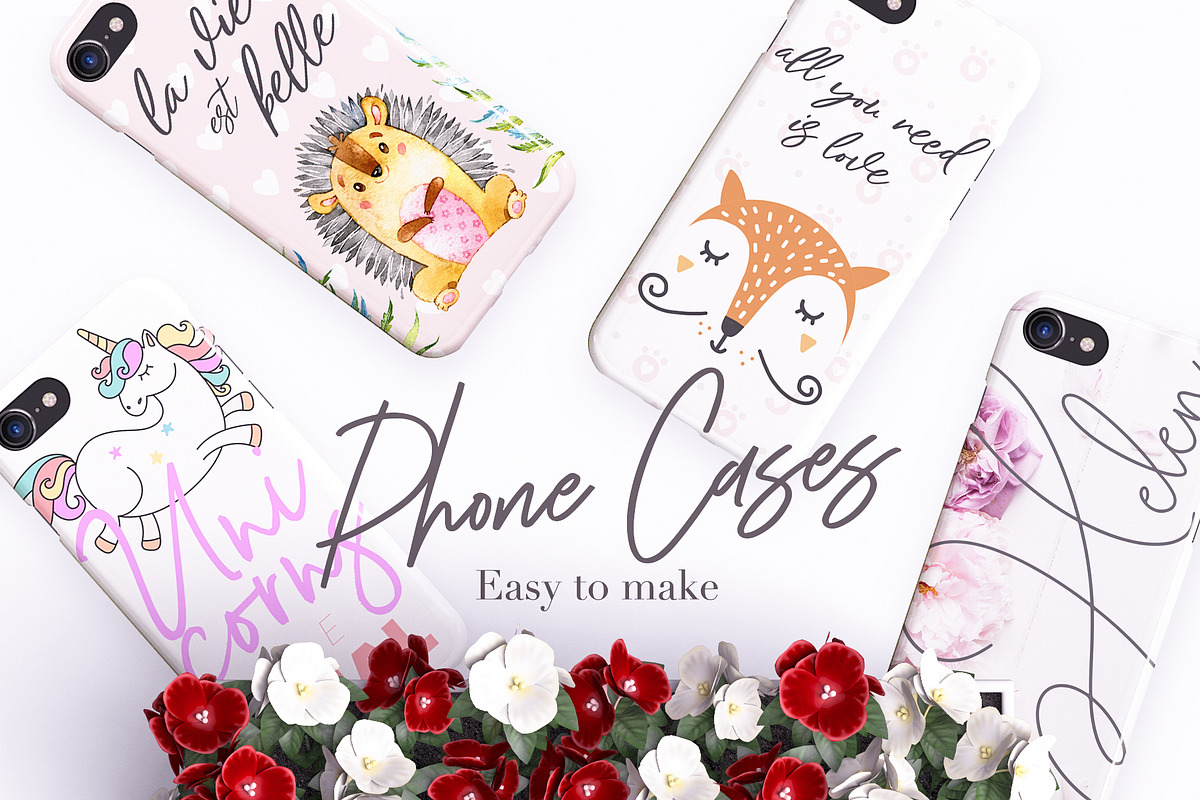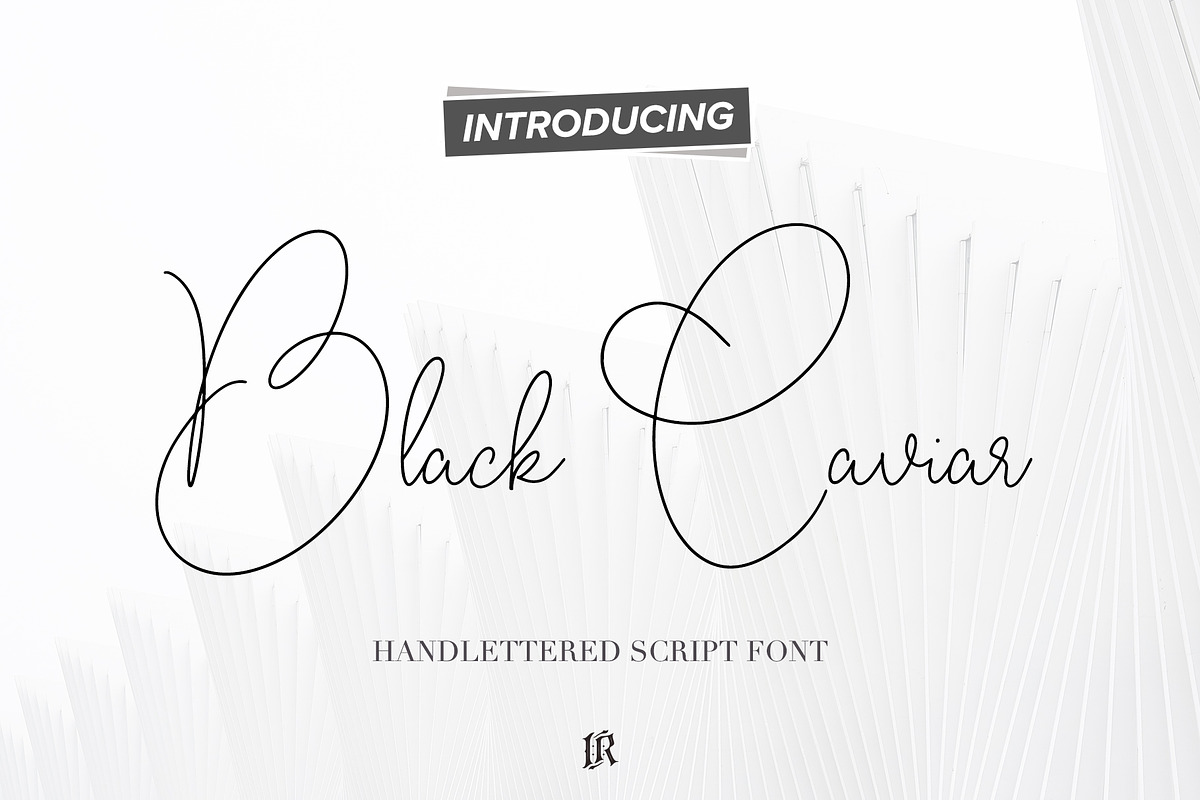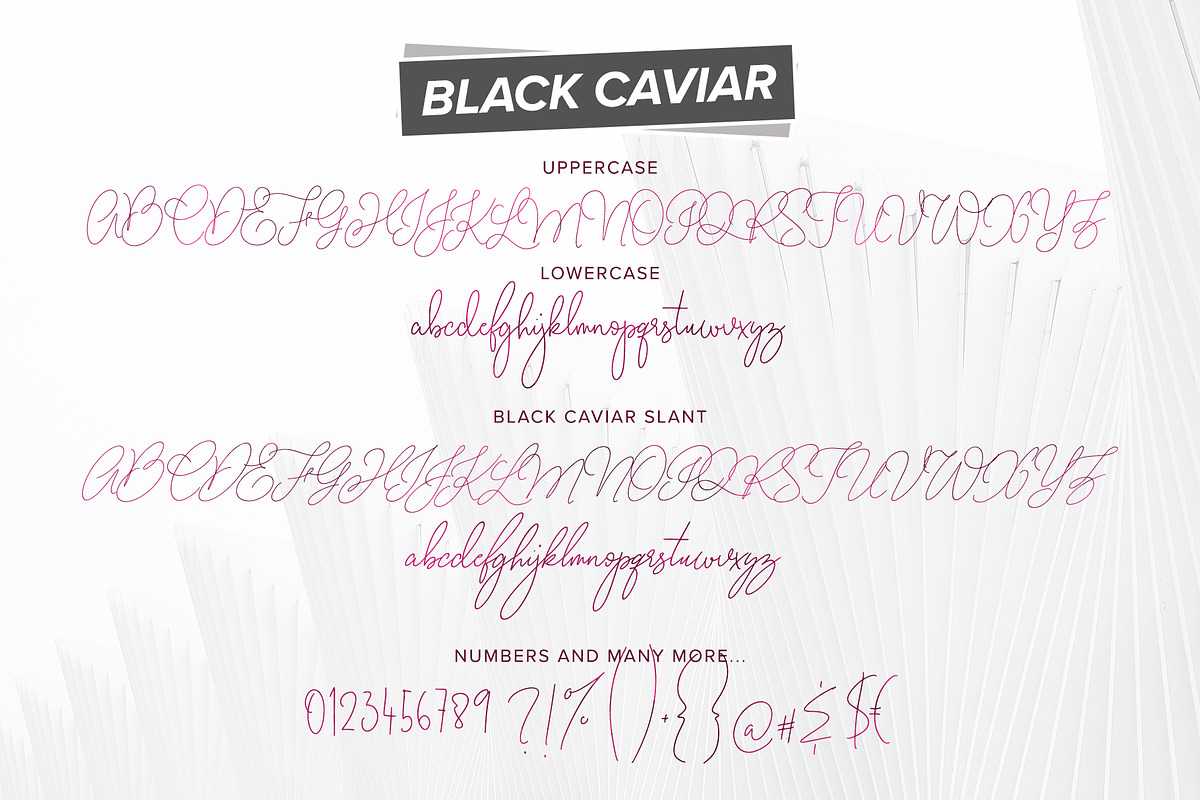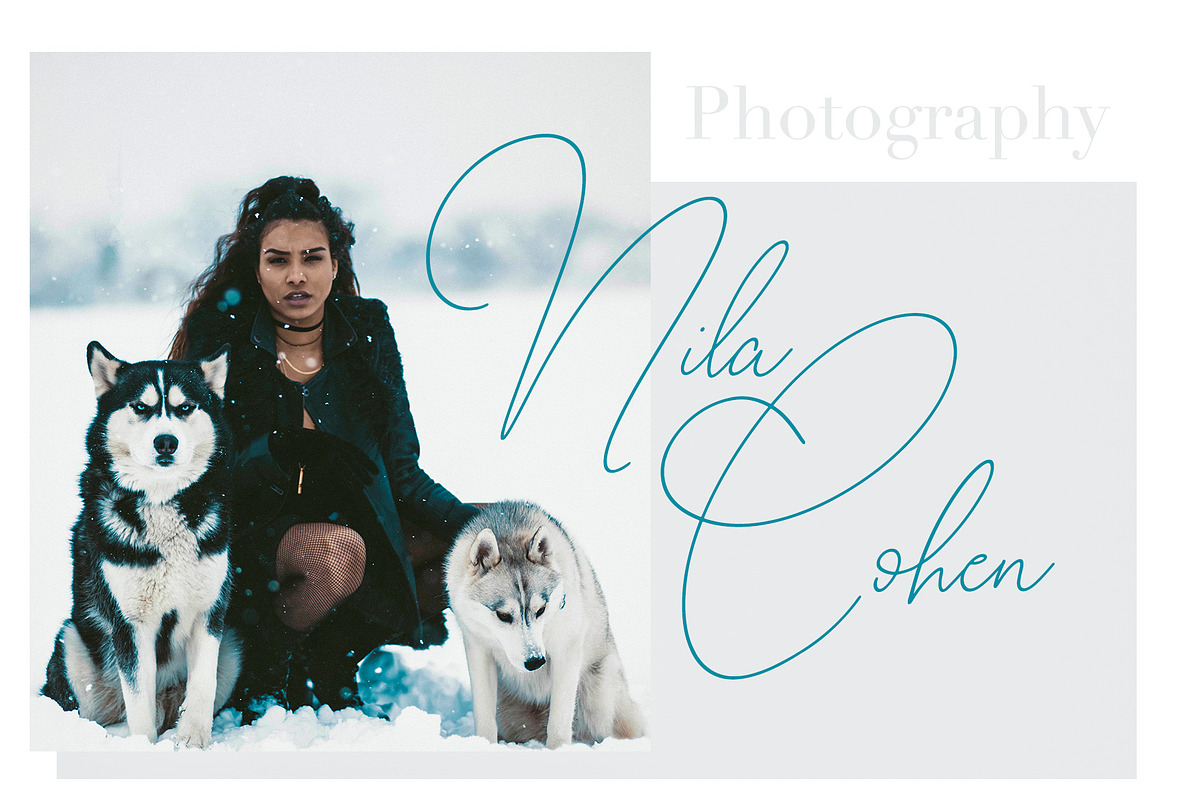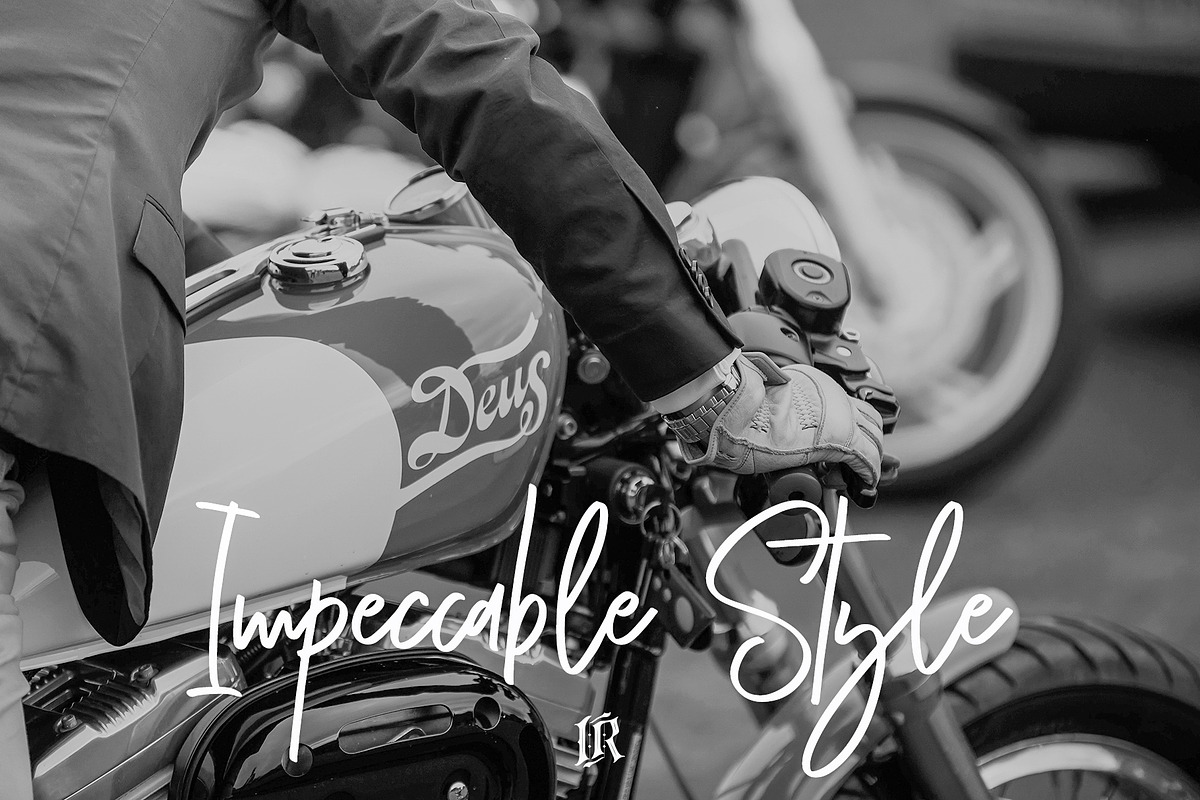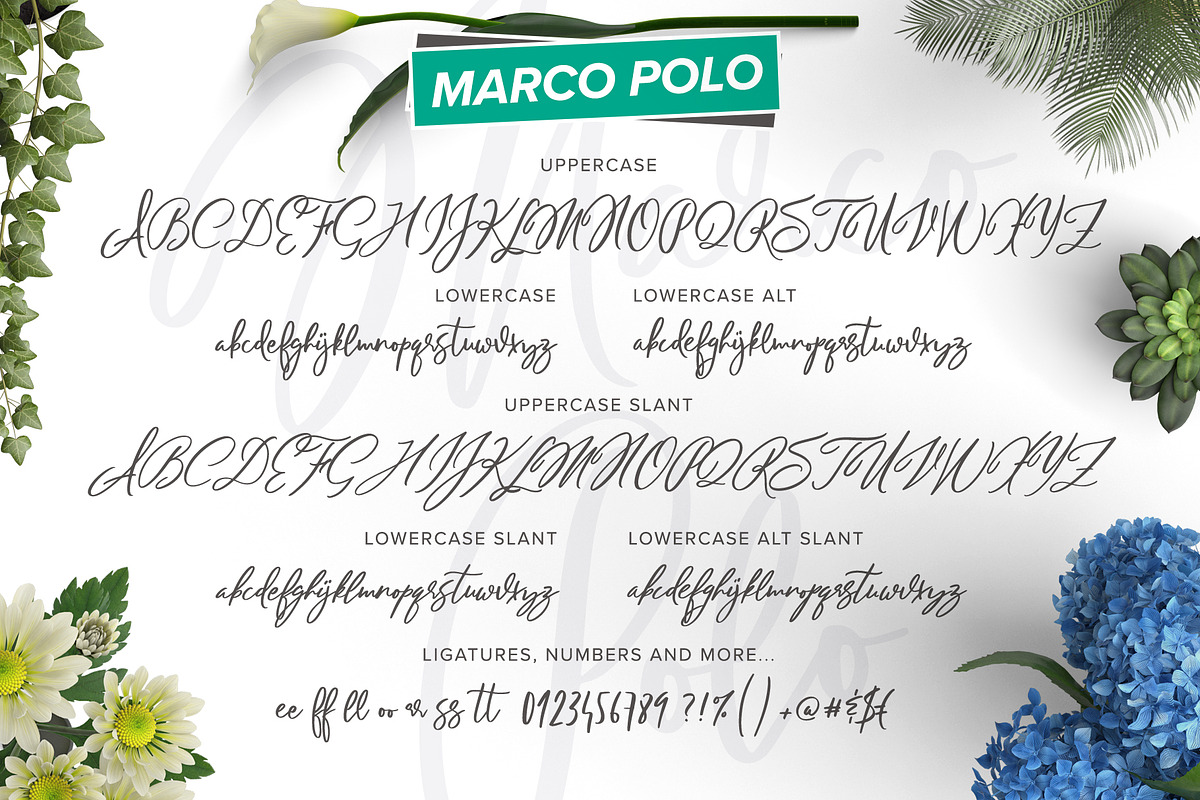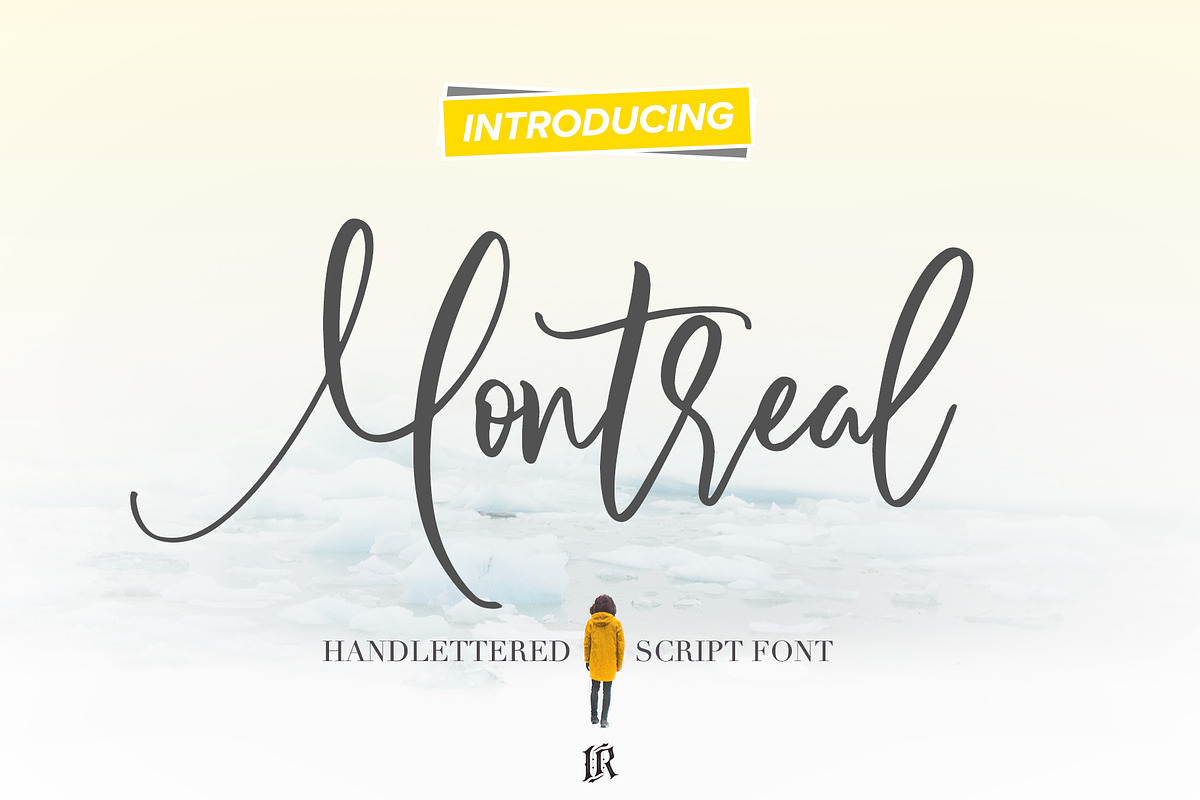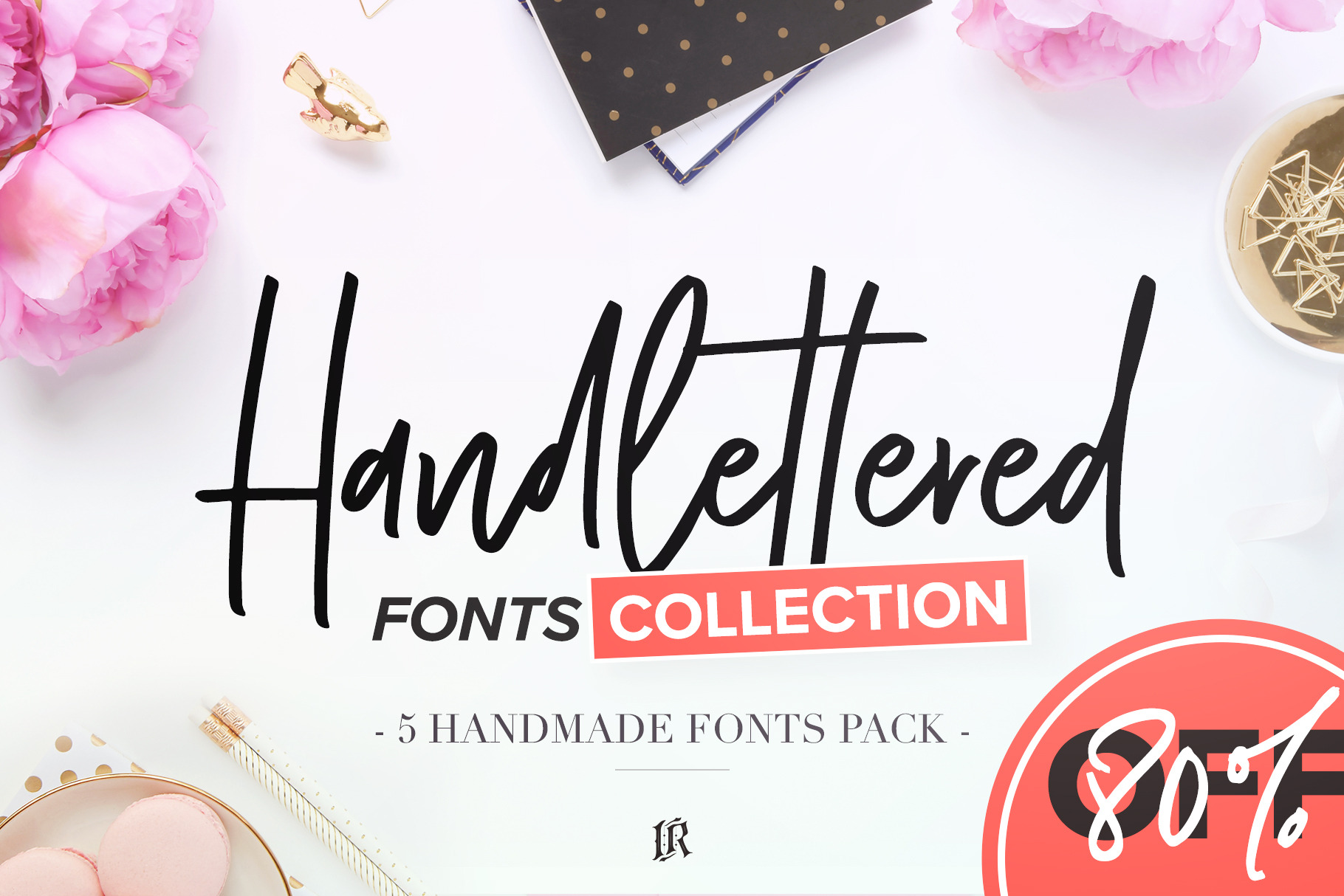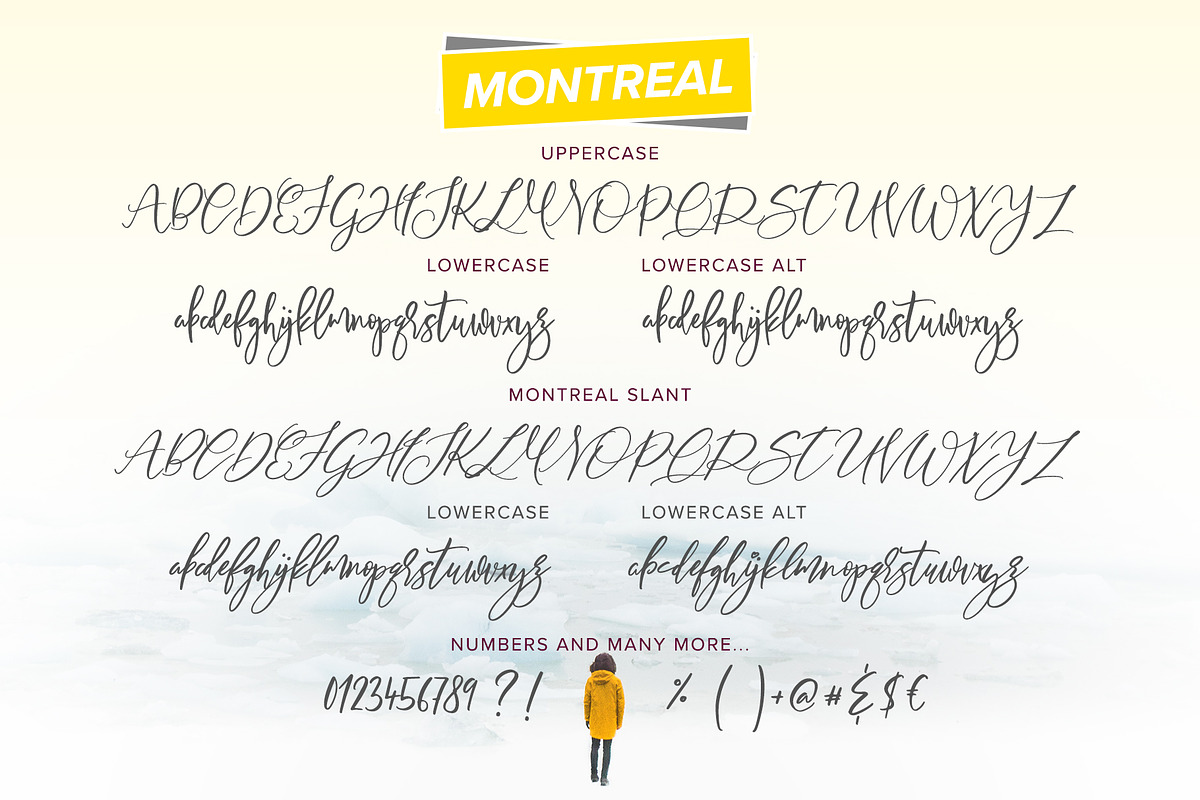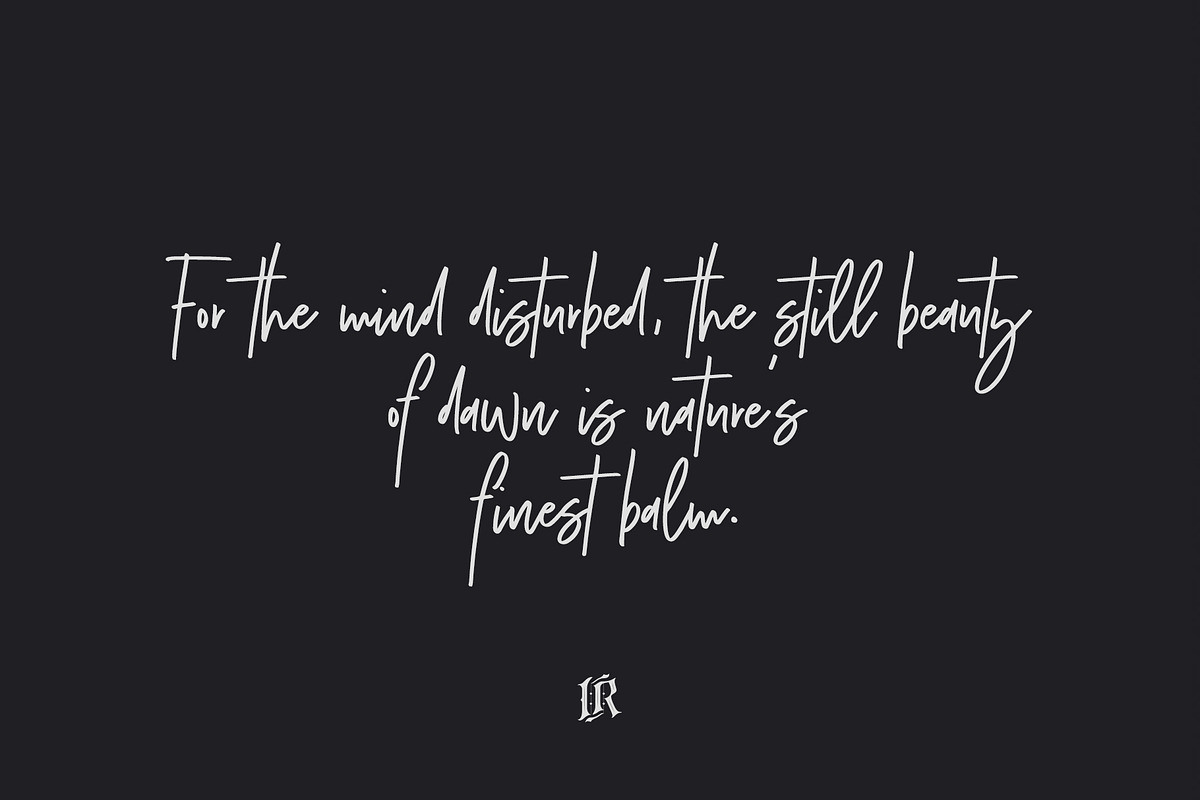
Handlettered Fonts Collection
Handlettered Fonts collection is a set of 5 handlettered fonts with multilingual support. These are ideal for t-shirts, magazines, phone covers, social media, restaurant menus, greeting cards, invitations, weddings, headers and many more.
- Rockway - Regular, Slant + alternates
- Supreme - Regular, Slant
- Black Caviar - Regular, Slant
- Marco Polo - Regular, Slant + alternates
- Montreal - Regular, Slant + alternates